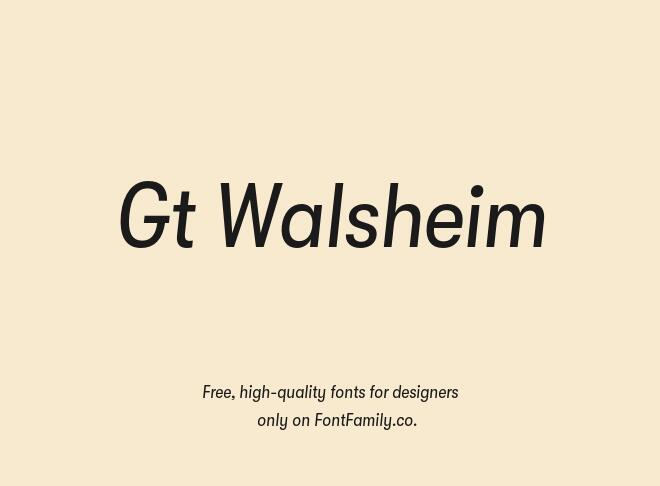
Gt Walsheim Font
The GT Walsheim Font, inspired by the geometric style of the 1930s, was originally designed by the renowned typographer Georg Trump. Its modern and geometric aesthetic makes it a perfect choice for contemporary design projects. GT Walsheim is a sans-serif typeface, characterized by its unique blend of modern and classic elements. It stands out with its distinctive ‘a’ and ‘g’ glyphs, unlike any other font. Ideal for headlines, logos, and large display text, GT Walsheim can add a touch of sophistication and elegance to your design. Compared to other fonts, it offers a fresh yet familiar appeal, making it an excellent choice for designers seeking to step away from mainstream typefaces. With its commercial license, GT Walsheim is free to use in a variety of professional design contexts.
Author | Georg Trump |
Release Year | 1930 |